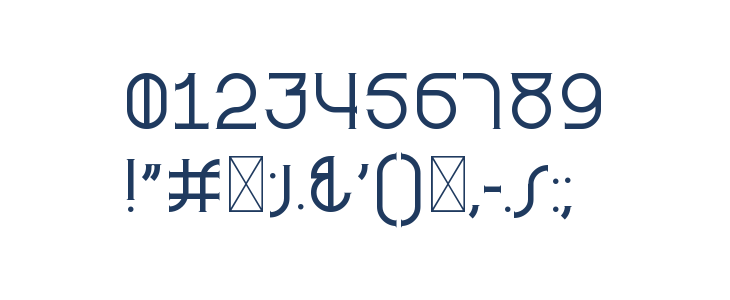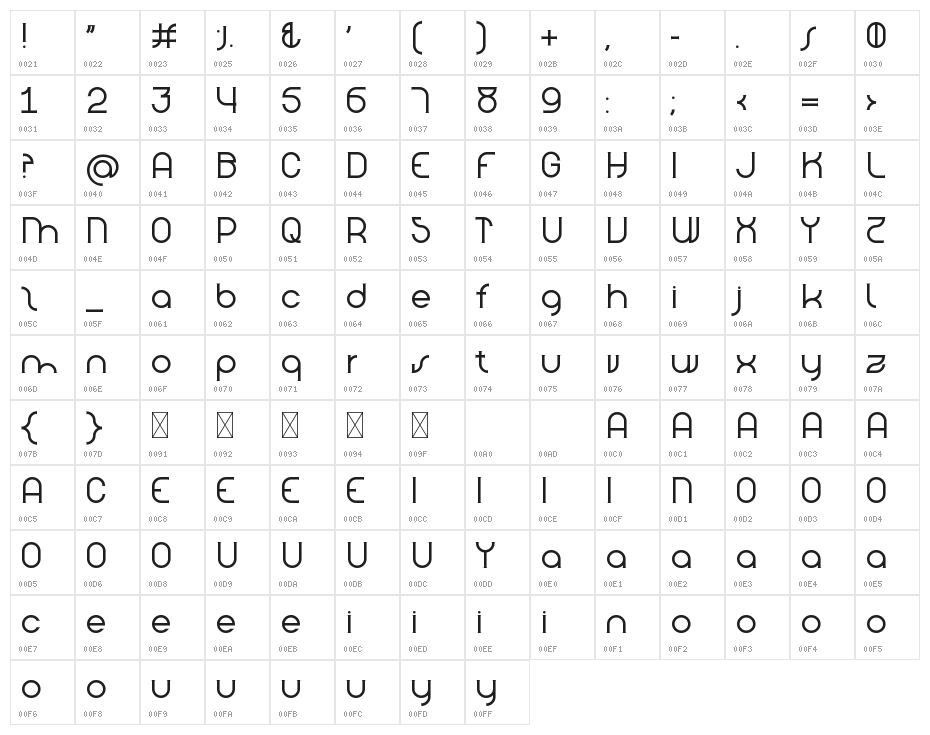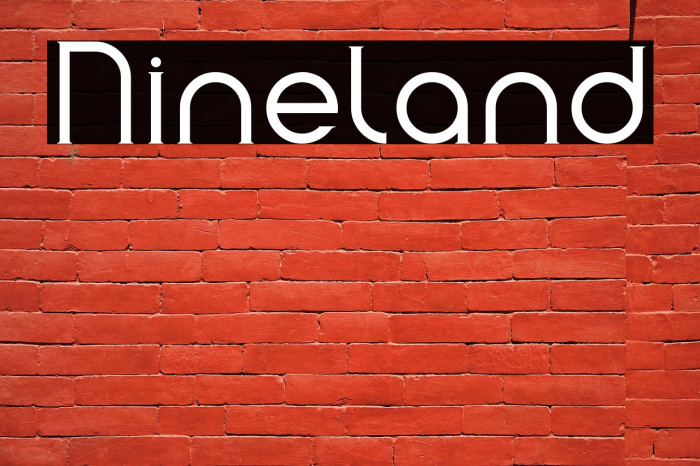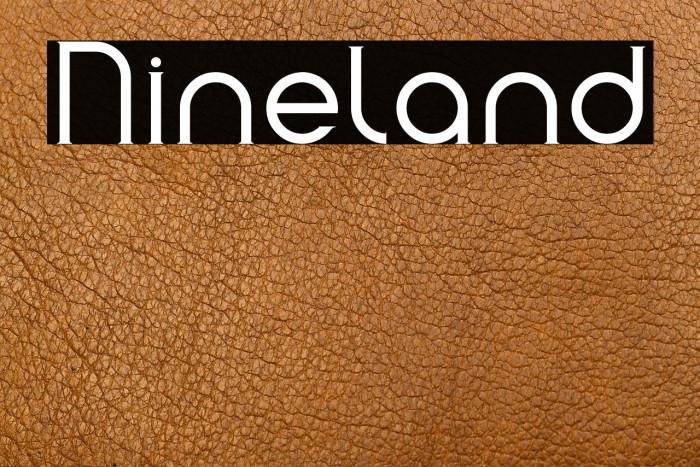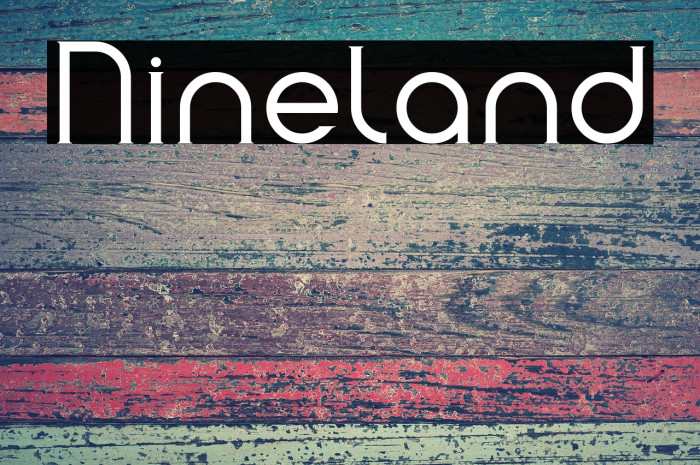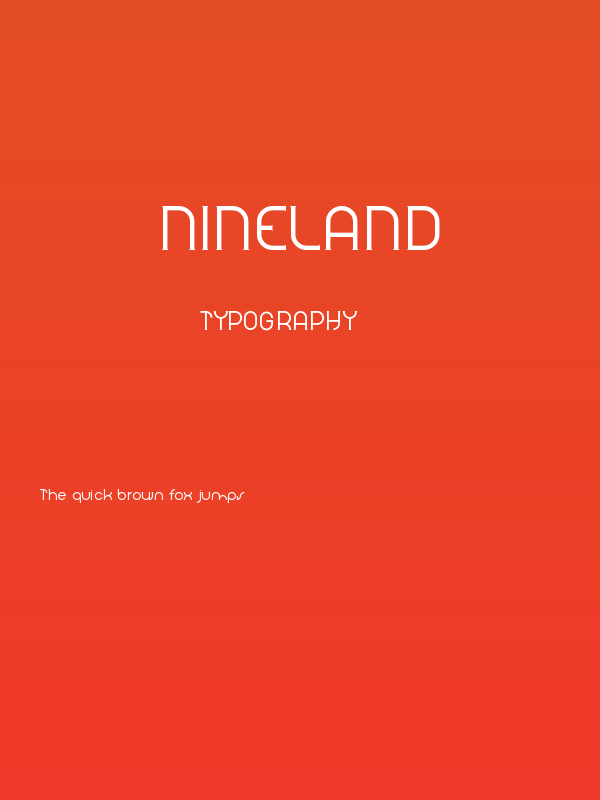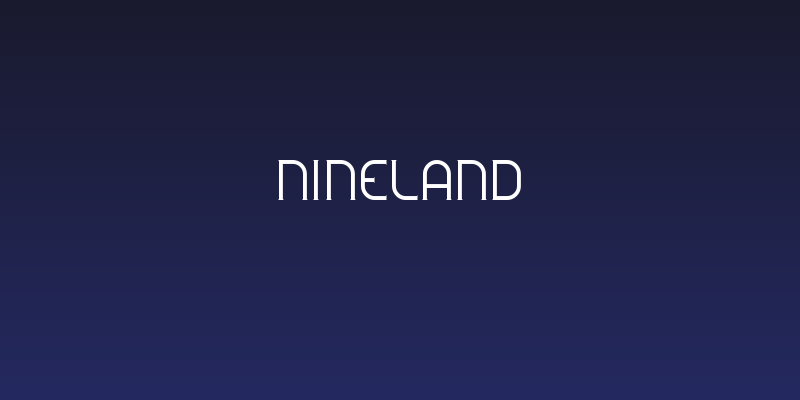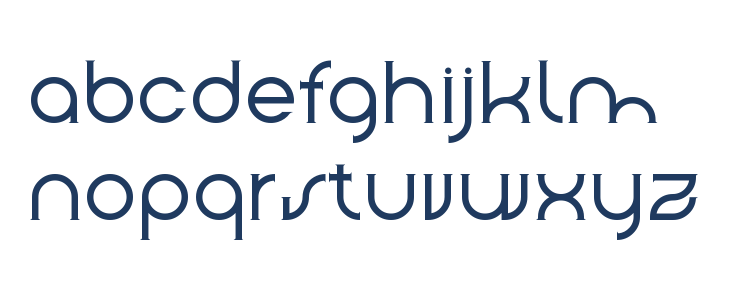
Nineland Font
Nineland Description
This font features a unique and modern design with a geometric and futuristic aesthetic. The characters are crafted with clean lines and a distinct curvature that gives them a sleek appearance. The uppercase letters have a uniform height, while the lowercase letters maintain a consistent style, enhancing readability. The numbers are bold and clear, making them suitable for various applications. Special characters are designed with the same attention to detail, ensuring they blend seamlessly with the rest of the font. Overall, this font exudes a contemporary vibe, ideal for projects that require a modern touch.